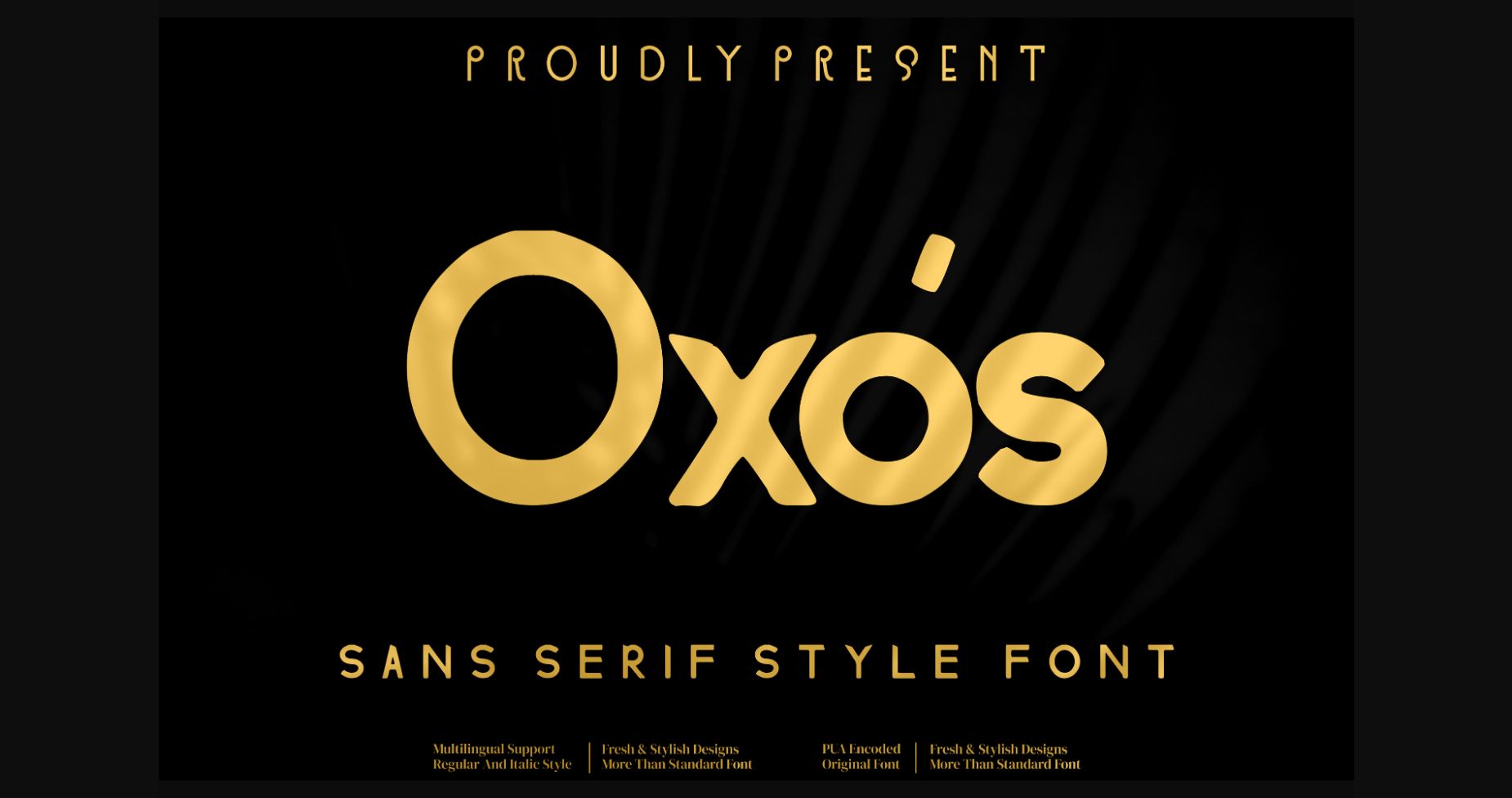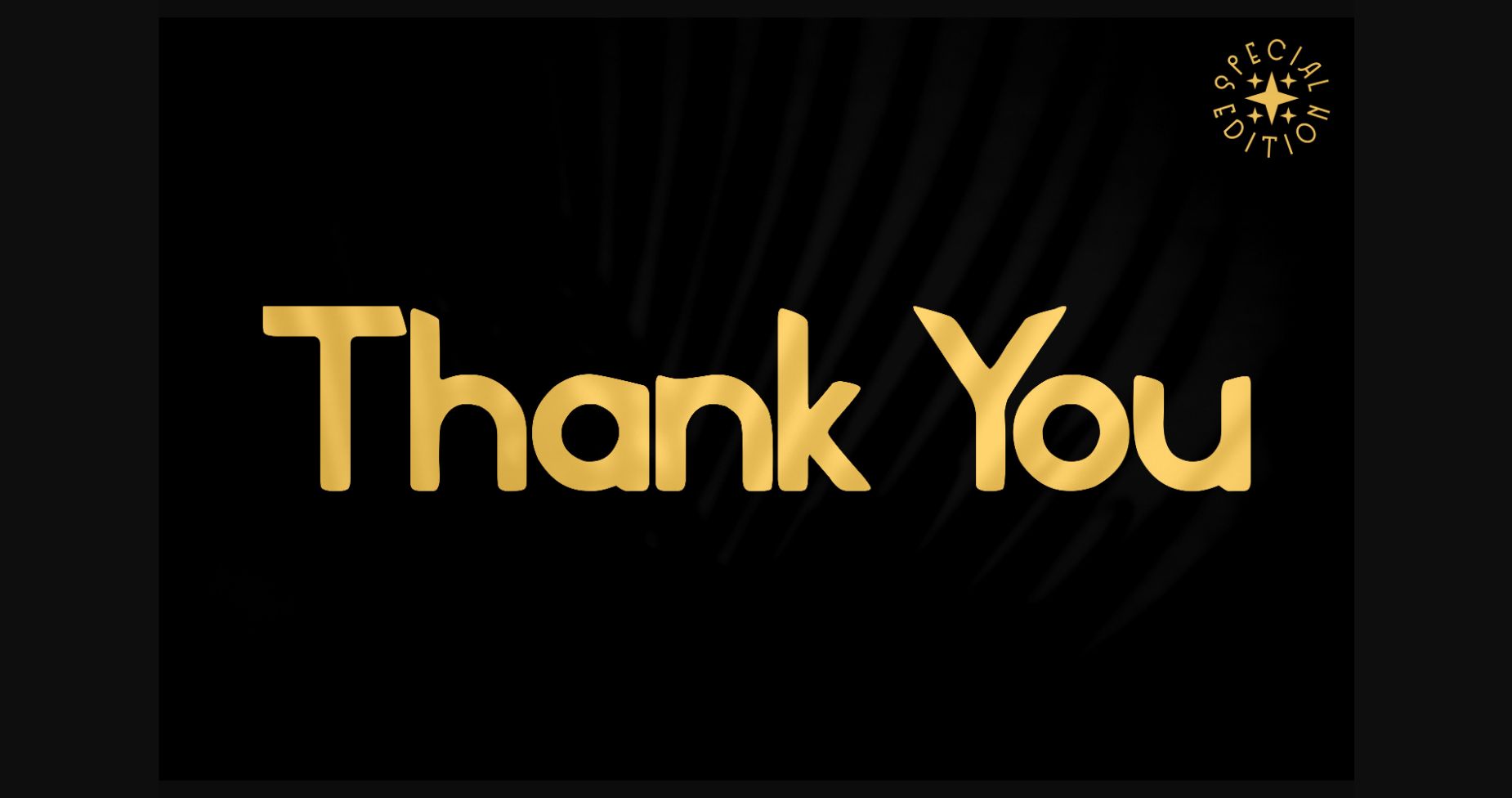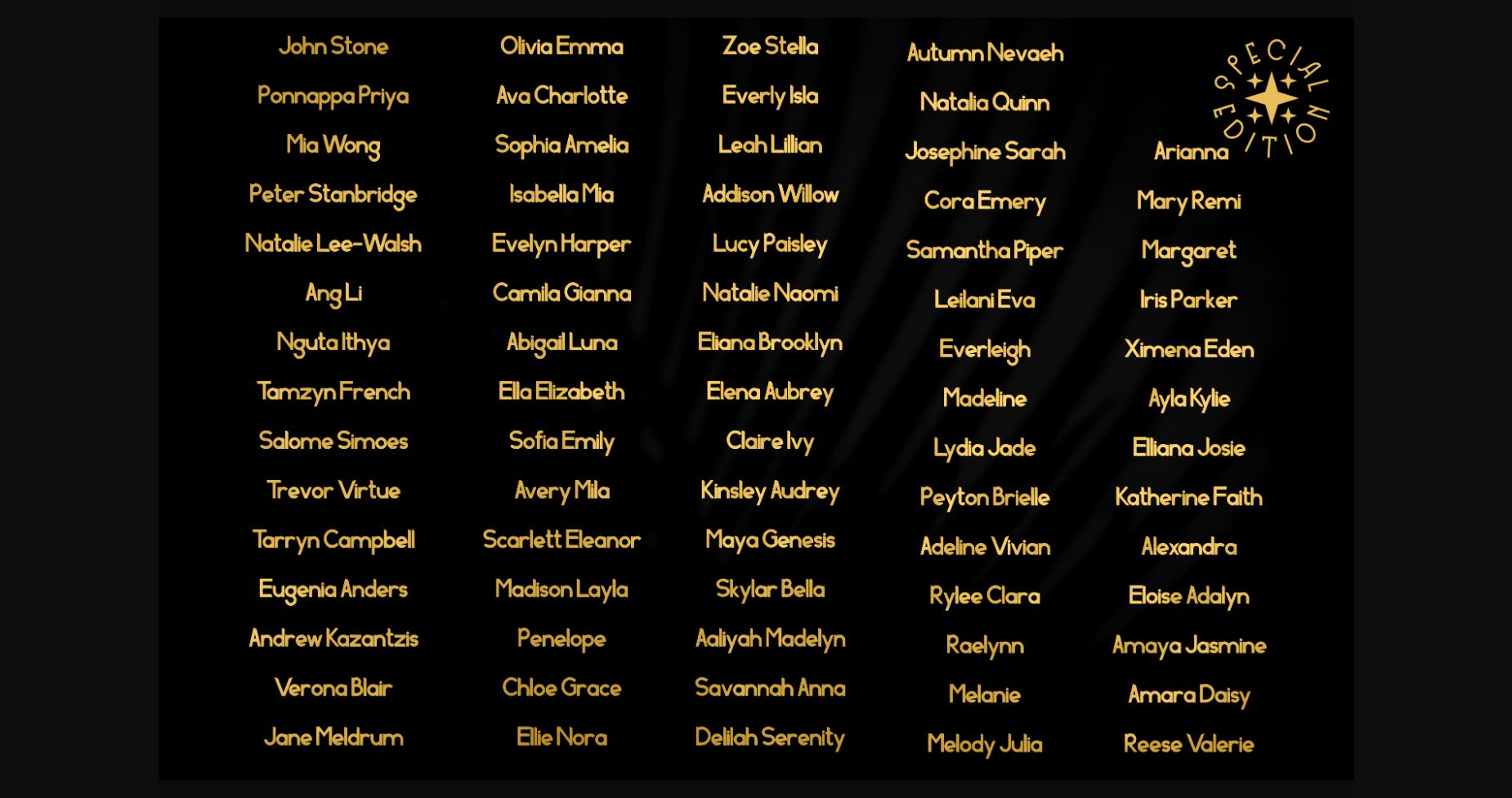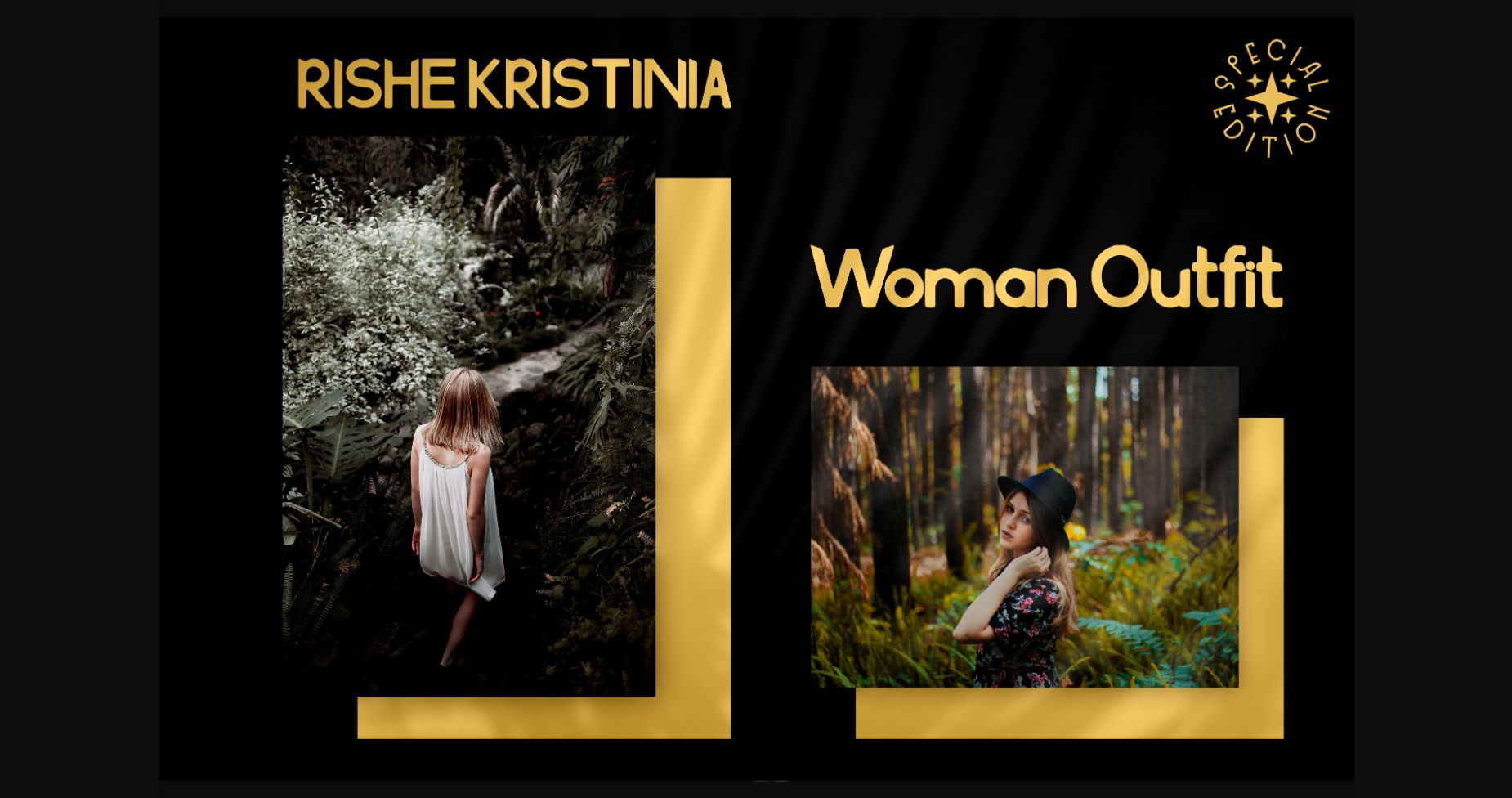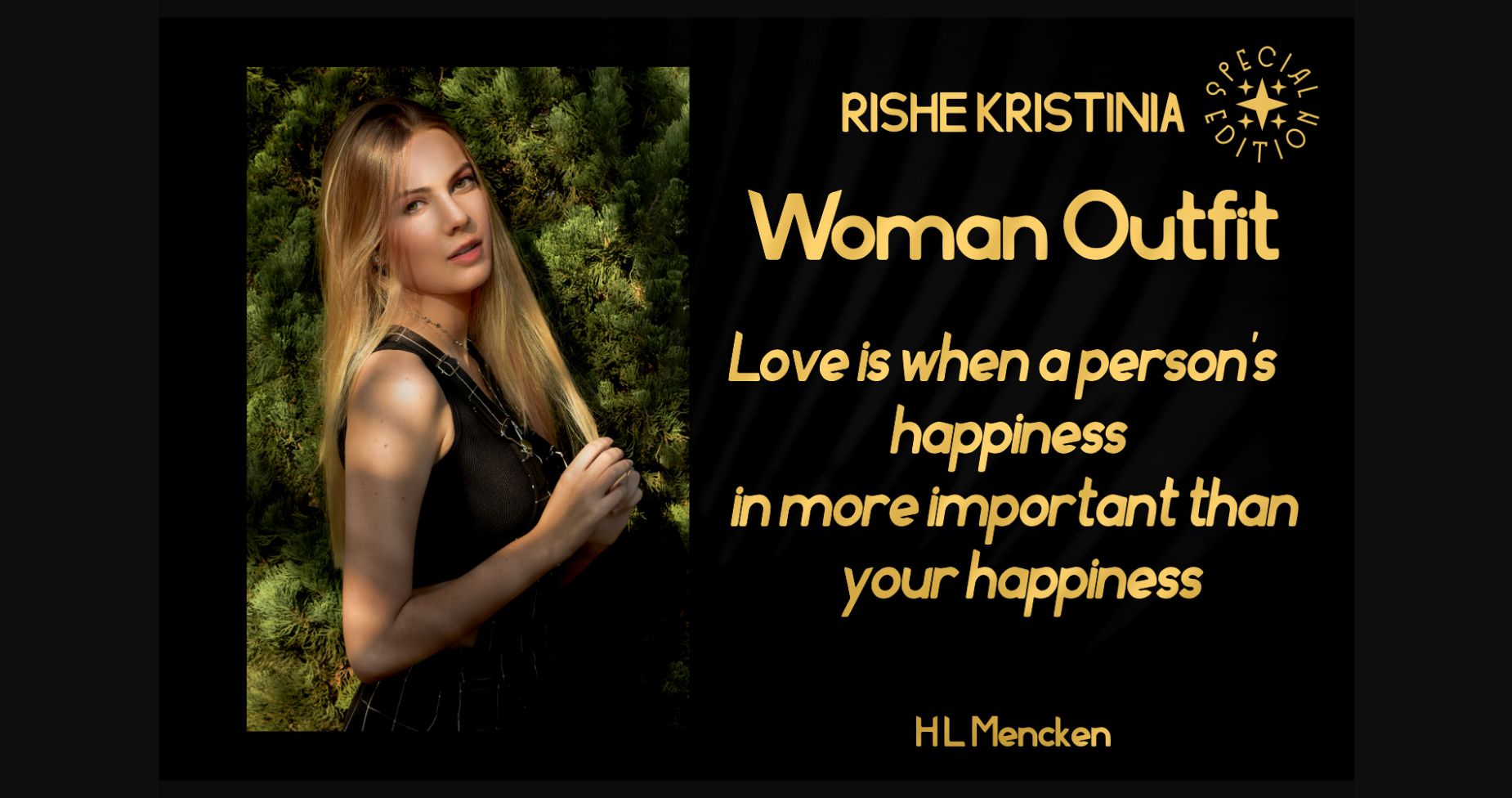
About Oxos Font
Oxos is a cool, vintage styled and brushed sans serif font. Adaptable to a variety of topics, this font will be a wonderful asset to your font library, as it has the potential to enhance any creation.